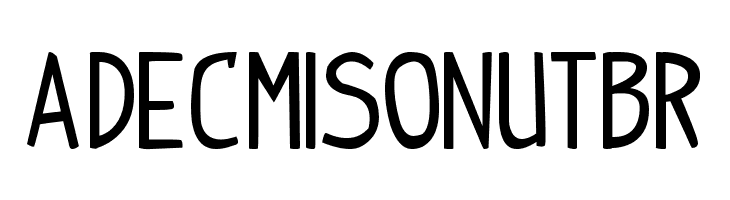
goodvibes regular Font
( Fonts by Press Gang Studios - Andeh Pinkard - www.pressgang-studios.com )
A playful, handwritten-style font with consistent strokes and a casual vibe.